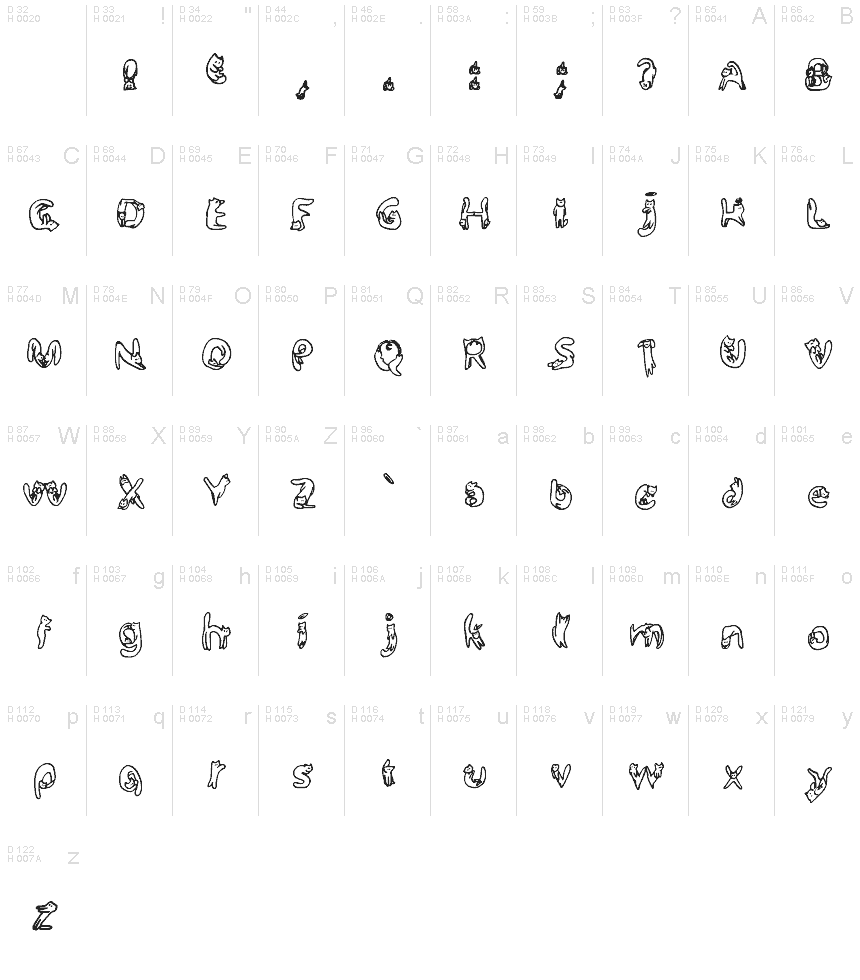
Catfont Regular
Catfont font is a quirky and whimsical display typeface by KodyFont. It is decorated with imaginative cat illustrations over outlined characters, offering a fun read to kids and all cat lovers. The cartoonish text in bold weight has a humorous aspect to it but remains quite artistic and professional at the same time.
This animal-inspired artistic free display font is perfect for magazines, children’s books, story covers, comics, movies, games, websites, mobile applications (apps), posters and banners. Use it to creatively design personalized mugs too for example. Exploiting its ability of grabbing instant attention will help get commercial work noticed faster.